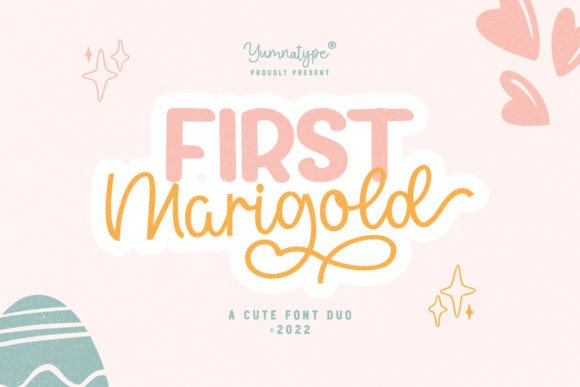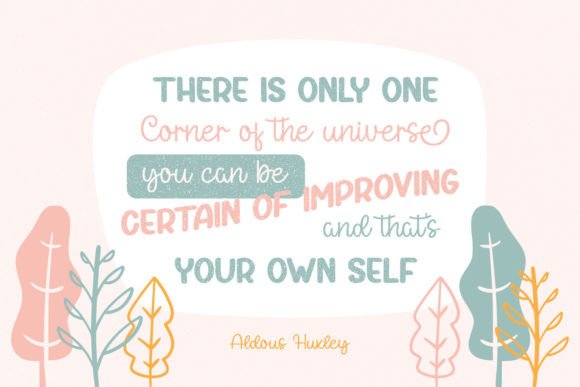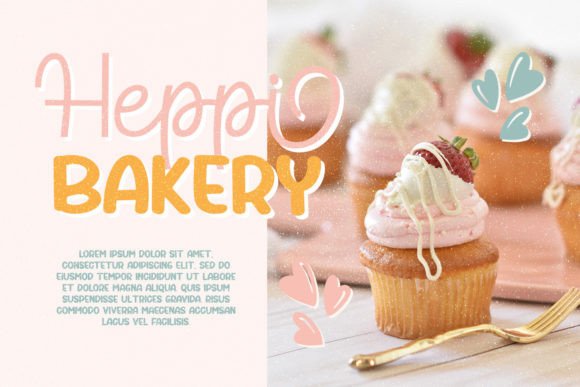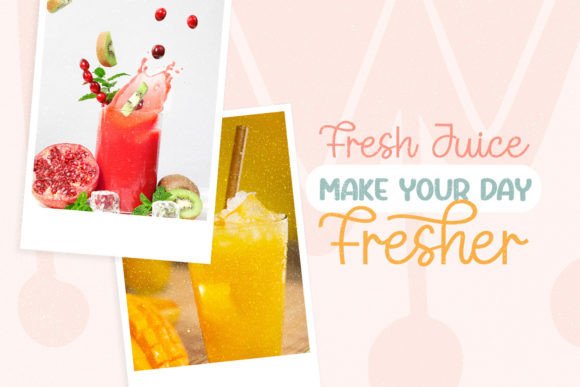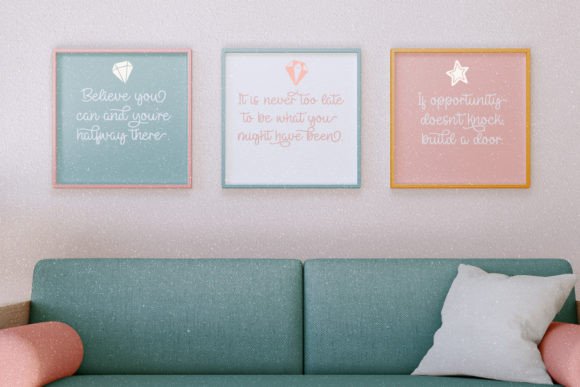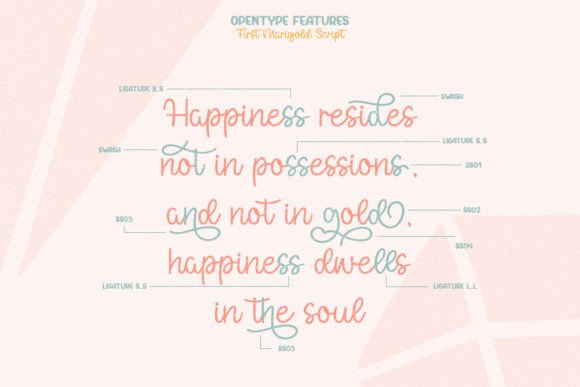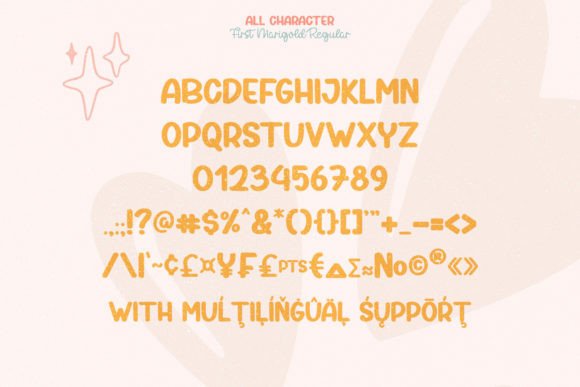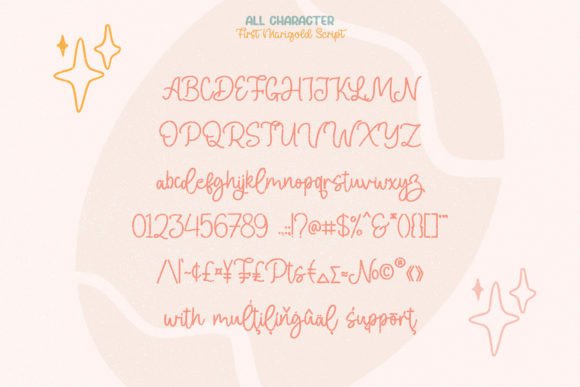
First Marigold Duo Font
First Marigold is a cute and playful font duo combining a casual sans serif with a quirky handwritten script. Add it confidently to your creative projects and you will love the results!